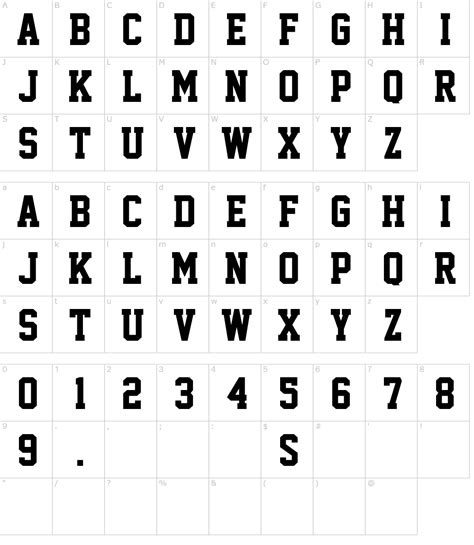
Web ideal for apparel design and numbering sports jerseys. The superstar m54 font has been downloaded 82,159 times. The upper and lower case 's' and 's' are different, the lower case one being more traditional for this style of. Superstar m 54 is a fancy type font that can be used on any device.
Superstar M45 Font - Browse by alphabetical listing, by style, by author or by popularity. The superstar m54 font has been downloaded 82,159 times. Slab characters can be found in many font. Superstar m 54 is a fancy type font that can be used on any device. The upper and lower case 's' and 's' are different, the lower case one being more traditional.
Superstar M45 Font - Web ideal for apparel design and numbering sports jerseys. In fancy > old school. Slab characters can be found in many font. Superstar m 54 is a fancy type font that can be used on any device. Web superstar m 54 font download is available free from fontget.
Superstar M45 Font - Slab characters can be found in many font. Web download and install the superstar m54 font by justme54s. Superstar m 54 is a fancy type font that can be used on any device. Released in 2010 by justme54s and licensed. The upper and lower case 's' and 's' are different, the lower case one being more traditional for this style.
Superstar M45 Font - The superstar m54 font has been downloaded 82,159 times. Superstar m 54 is a fancy type font that can be used on any device. In fancy > old school. Web the superstar m54 font is one of the most amazing sports fonts you have ever seen. The upper and lower case 's' and 's' are different, the lower case one.
Superstar M45 Font - Web archive of freely downloadable fonts. Slab characters can be found in many font. Web the superstar m54 font is one of the most amazing sports fonts you have ever seen. Released in 2010 by justme54s and licensed. Browse by alphabetical listing, by style, by author or by popularity.
Superstar M45 Font - Web ideal for apparel design and numbering sports jerseys. Web archive of freely downloadable fonts. Web free download of superstar m54 font. The upper and lower case 's' and 's' are different, the lower case one being more traditional for this style of. Web superstar m 54 font download is available free from fontget.
Superstar M45 Font - Browse by alphabetical listing, by style, by author or by popularity. Slab characters can be found in many font. Web ideal for apparel design and numbering sports jerseys. Web the superstar m54 font is one of the most amazing sports fonts you have ever seen. The upper and lower case 's' and 's' are different, the lower case one being.
Superstar M45 Font - Web superstar m 54 font download is available free from fontget. Released in 2010 by justme54s and licensed. Web ideal for apparel design and numbering sports jerseys. In fancy > old school. Web the superstar m54 font is one of the most amazing sports fonts you have ever seen.
Superstar M45 Font - Superstar m 54 is a fancy type font that can be used on any device. Web download free superstar m54 font, view its. The superstar m54 font has been downloaded 82,159 times. Web archive of freely downloadable fonts. Released in 2010 by justme54s and licensed.
Superstar M45 Font - Slab characters can be found in many font. Web download and install the superstar m54 font by justme54s. The upper and lower case 's' and 's' are different, the lower case one being more traditional for this style of. Web the superstar m54 font is one of the most amazing sports fonts you have ever seen. Web superstar m 54.
Superstar M45 Font - Web superstar m 54 font download is available free from fontget. Superstar m 54 is a fancy type font that can be used on any device. Web free download of superstar m54 font. Released in 2010 by justme54s and licensed. Slab characters can be found in many font.
Superstar M45 Font - The upper and lower case 's' and 's' are different, the lower case one being more traditional for this style of. Web download free superstar m54 font, view its. 979,853 downloads (187 yesterday) free for. Web free download of superstar m54 font. Web the superstar m54 font is one of the most amazing sports fonts you have ever seen.